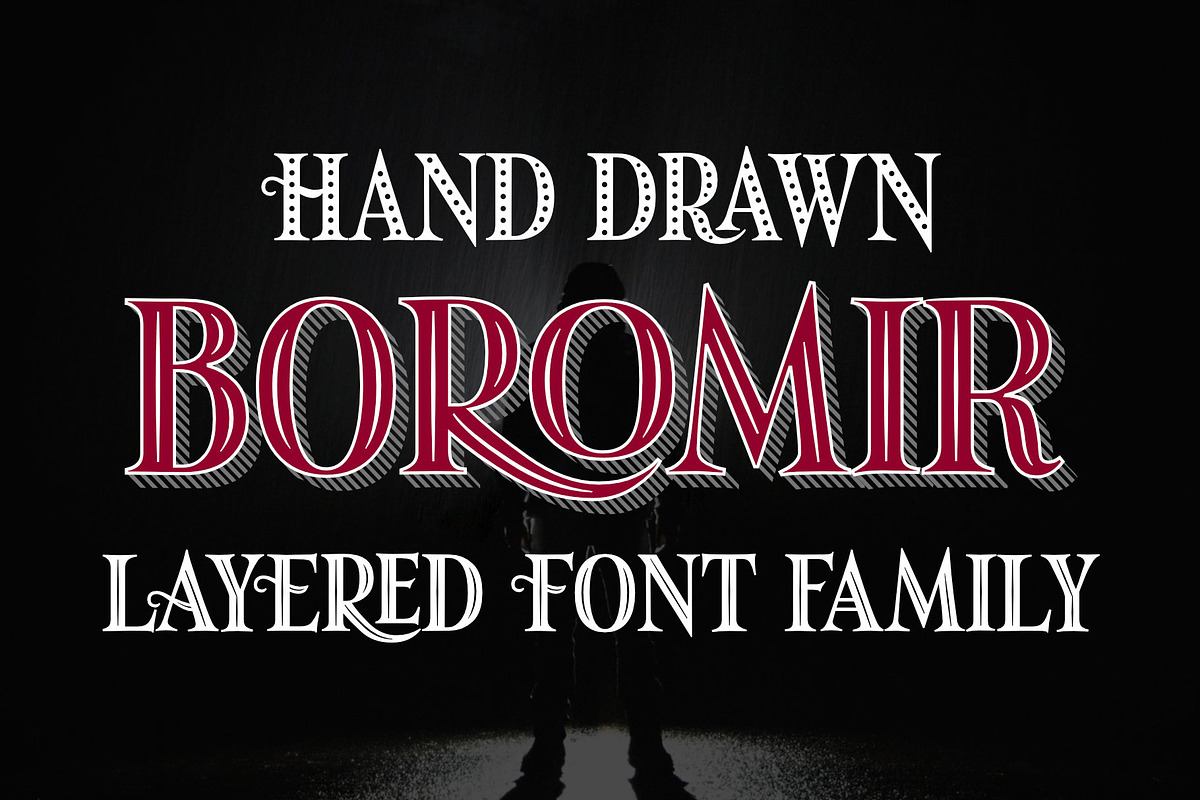
Boromir – 11 Layered Fonts Free Download is a powerful and versatile font family that offers 11 layered variations, giving you endless creative possibilities. Perfect for logos, packaging, headlines, posters, and dynamic web design, this font family allows you to create bold, multi-dimensional typography with ease.
Whether you’re working on a vintage design, a modern project, or something with a retro twist, the Boromir font family provides you with all the tools you need to create stunning layered text effects. The layers allow you to experiment with depth, shadows, and textures, giving your typography a rich, visually captivating appeal.
Designers love Boromir for its flexibility and bold personality across both digital and print platforms. Want to make your typography stand out? Download Boromir – 11 Layered Fonts Free Download and add depth and dimension to your next project.